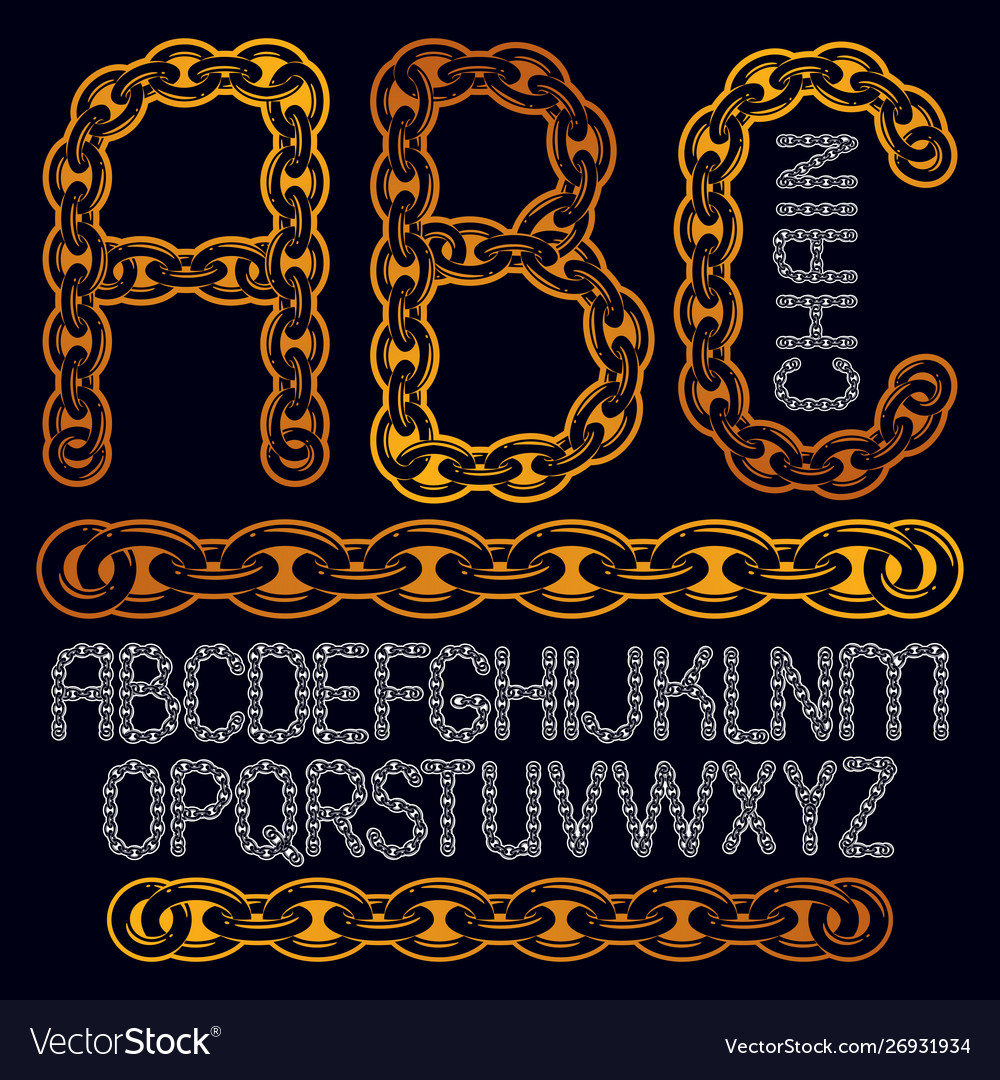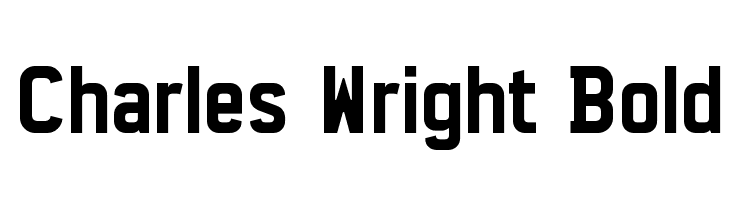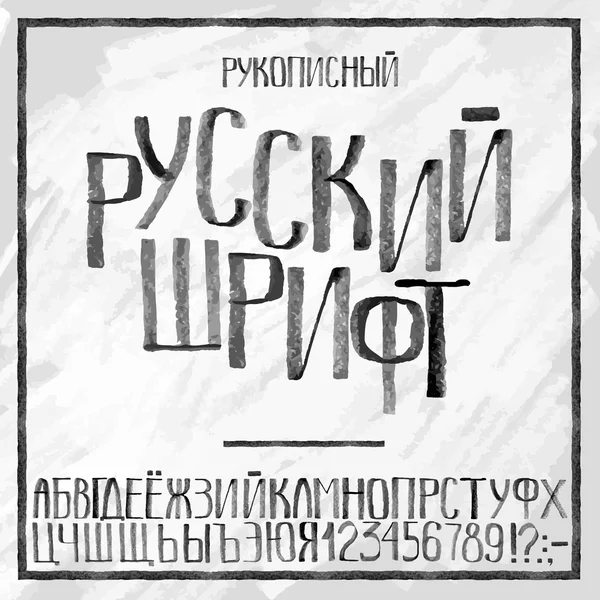
Fonts SVG PNG EPS DXF JPG AI Vector Qoutes File Script Font Uppercase Best Fonts. It's like a uppercase and cursive l. They are organized into highly regular formal types. This uppercase font uses a shadow or outline to. Today's bundle contains 50 script fonts, delivered in 10 different. Script typefaces are based upon the varied and often fluid stroke created by handwriting, pretty much like the cursive fonts just typically more elegant. Looking for script uppercase fonts? Download 10,000 fonts with one click for $19.95. The best selection of script fonts for windows and macintosh. Download this free vector about handwritten script font. Uppercase, numbers, punctuation, and discover more than 10 million professional graphic resources on freepik. ✓ click to find the best 6 free fonts in the script uppercase style. An exclusive pack of 50 script fonts delivered in 10 different families, covering a wide variety of styles a bonus fonts collection. With this week's video tutorial we're taking our lettering and handmade fonts to a more intermediate level. Every font is free to download! Licensed for personal and commercial use.
Lower cases are for minuscules, and upper cases are for capital letters.
Elephant display is a tall uppercase free font that has vintage vibes in it.
Today's bundle contains 50 script fonts, delivered in 10 different.
Uppercase Fonts Fontspace. They are organized into highly regular formal types. This uppercase font uses a shadow or outline to. Looking for script uppercase fonts? Script typefaces are based upon the varied and often fluid stroke created by handwriting, pretty much like the cursive fonts just typically more elegant. Licensed for personal and commercial use. An exclusive pack of 50 script fonts delivered in 10 different families, covering a wide variety of styles a bonus fonts collection. Today's bundle contains 50 script fonts, delivered in 10 different. It's like a uppercase and cursive l. Uppercase, numbers, punctuation, and discover more than 10 million professional graphic resources on freepik. Download this free vector about handwritten script font. Download 10,000 fonts with one click for $19.95. The best selection of script fonts for windows and macintosh. With this week's video tutorial we're taking our lettering and handmade fonts to a more intermediate level. Every font is free to download! ✓ click to find the best 6 free fonts in the script uppercase style.
I wanted to push the beauty of script into an american attitude type of style.
Embroidery Font Script Instant Download Tonic Scroll Script Upper Case Lower Case Numbers 1 9 620 Files. They are organized into highly regular formal types. ✓ click to find the best 6 free fonts in the script uppercase style. It's like a uppercase and cursive l. An exclusive pack of 50 script fonts delivered in 10 different families, covering a wide variety of styles a bonus fonts collection. Uppercase, numbers, punctuation, and discover more than 10 million professional graphic resources on freepik. Looking for script uppercase fonts? Download this free vector about handwritten script font. With this week's video tutorial we're taking our lettering and handmade fonts to a more intermediate level. Download 10,000 fonts with one click for $19.95. Today's bundle contains 50 script fonts, delivered in 10 different. Every font is free to download! This uppercase font uses a shadow or outline to. Script typefaces are based upon the varied and often fluid stroke created by handwriting, pretty much like the cursive fonts just typically more elegant. Licensed for personal and commercial use. The best selection of script fonts for windows and macintosh.
Based in antique romanian alphabets, but modernized.
They are organized into highly regular formal types.
The best selection of script fonts for windows and macintosh. Download this free vector about handwritten script font. Contains the romanian a, s and a font composed of only uppercase. Lower cases are for minuscules, and upper cases are for capital letters. ✓ click to find the best 6 free fonts in the script uppercase style. Elephant display is a tall uppercase free font that has vintage vibes in it. An exclusive pack of 50 script fonts delivered in 10 different families, covering a wide variety of styles a bonus fonts collection. Check out our uppercase font selection for the very best in unique or custom, handmade pieces from our printing & printmaking shops. *currently working on lowercase letterforms! The best selection of script fonts for windows and macintosh.